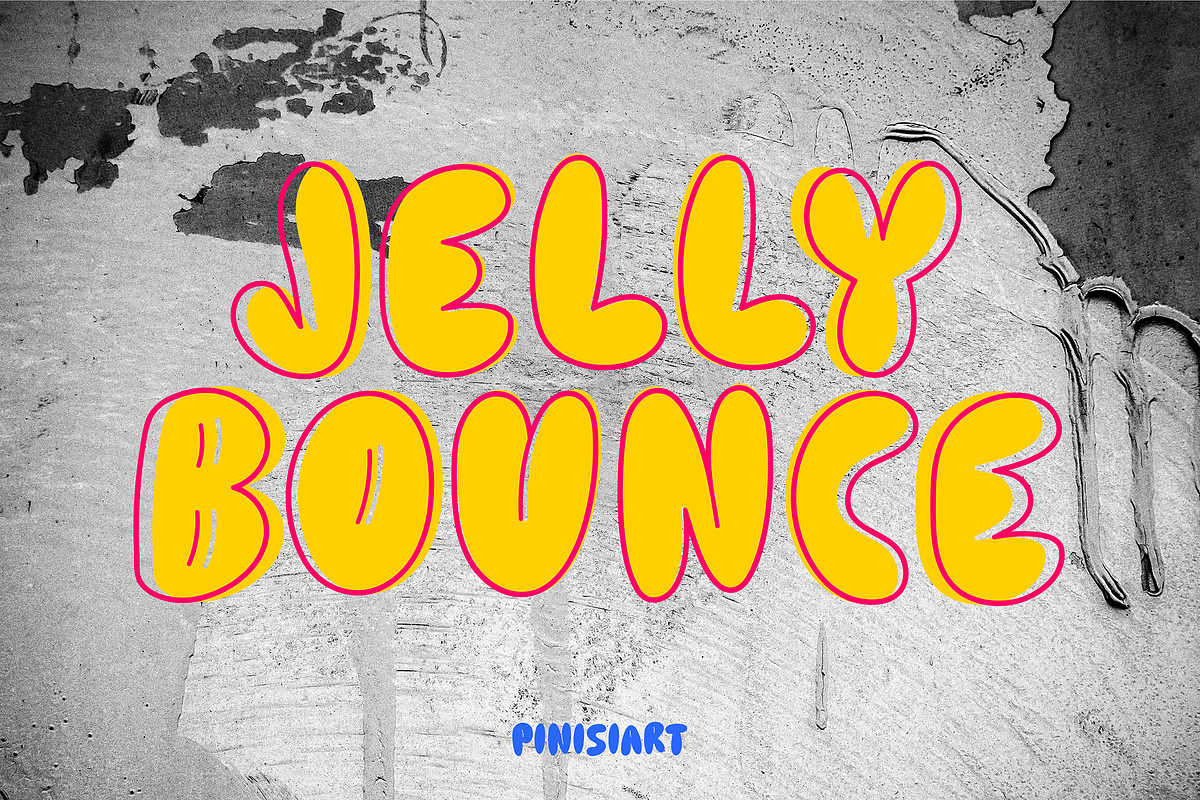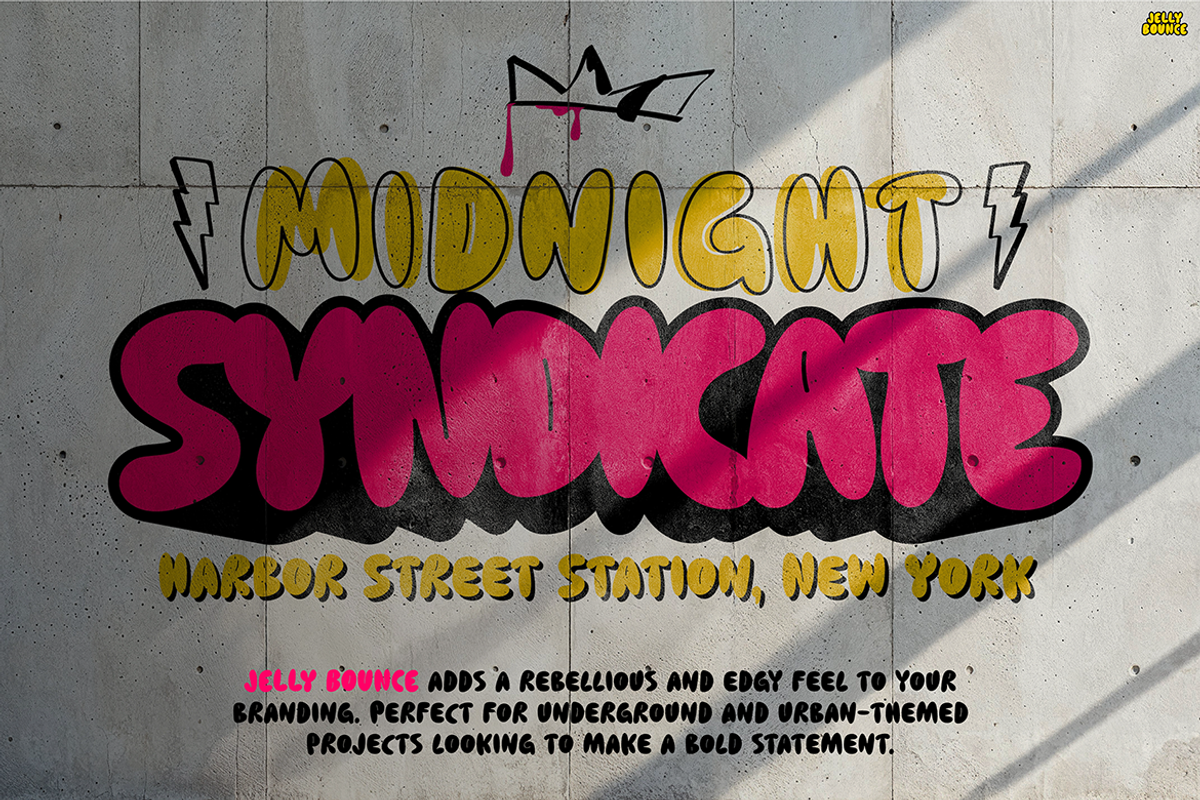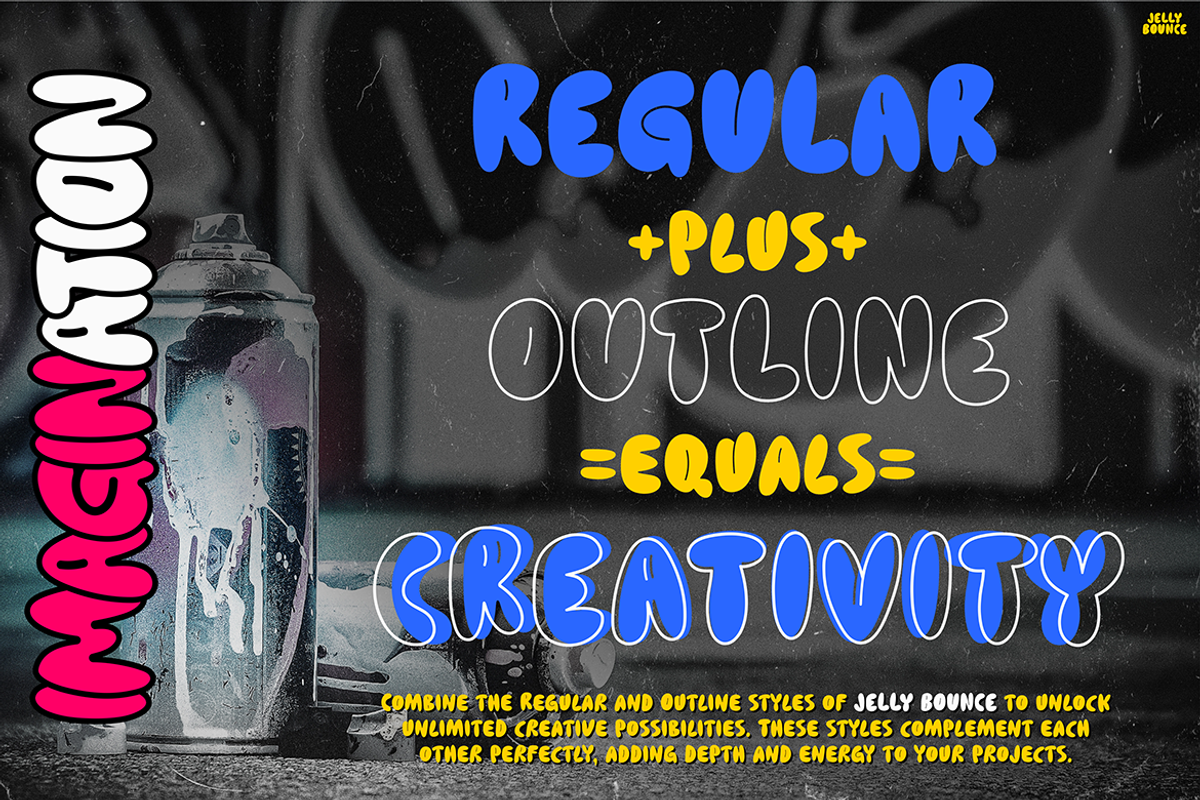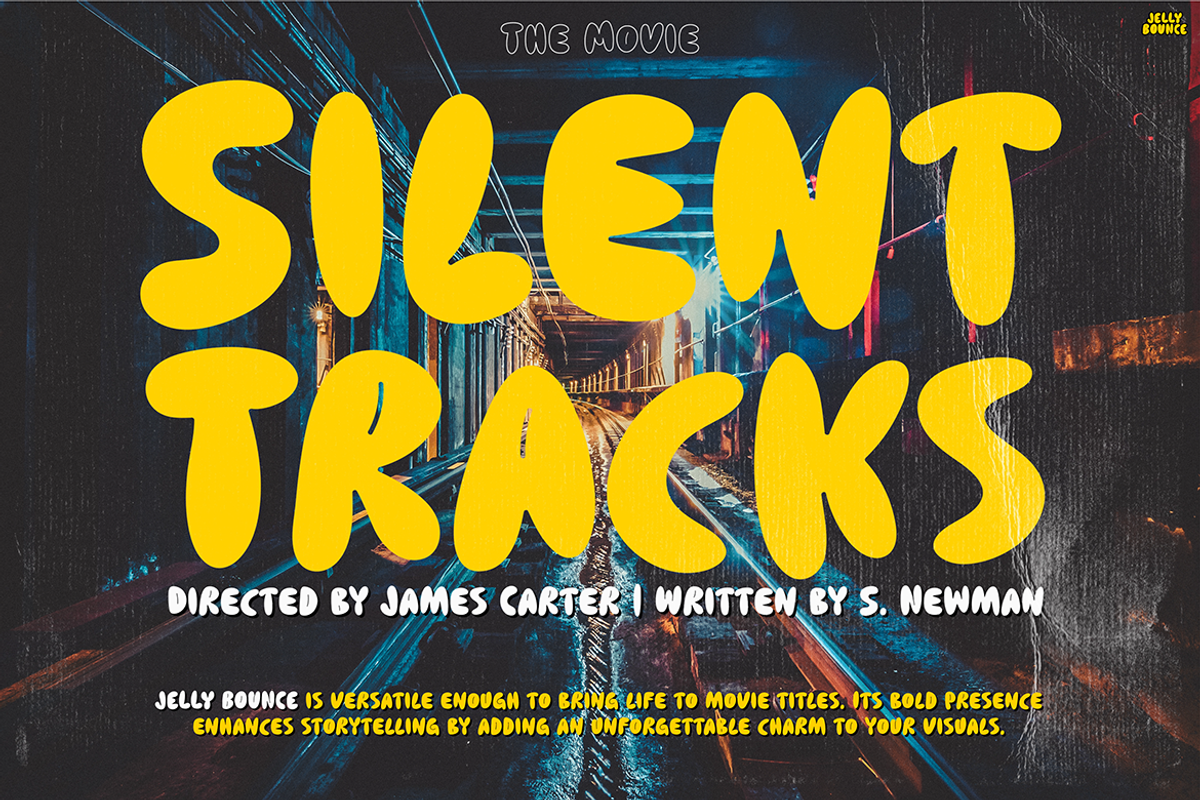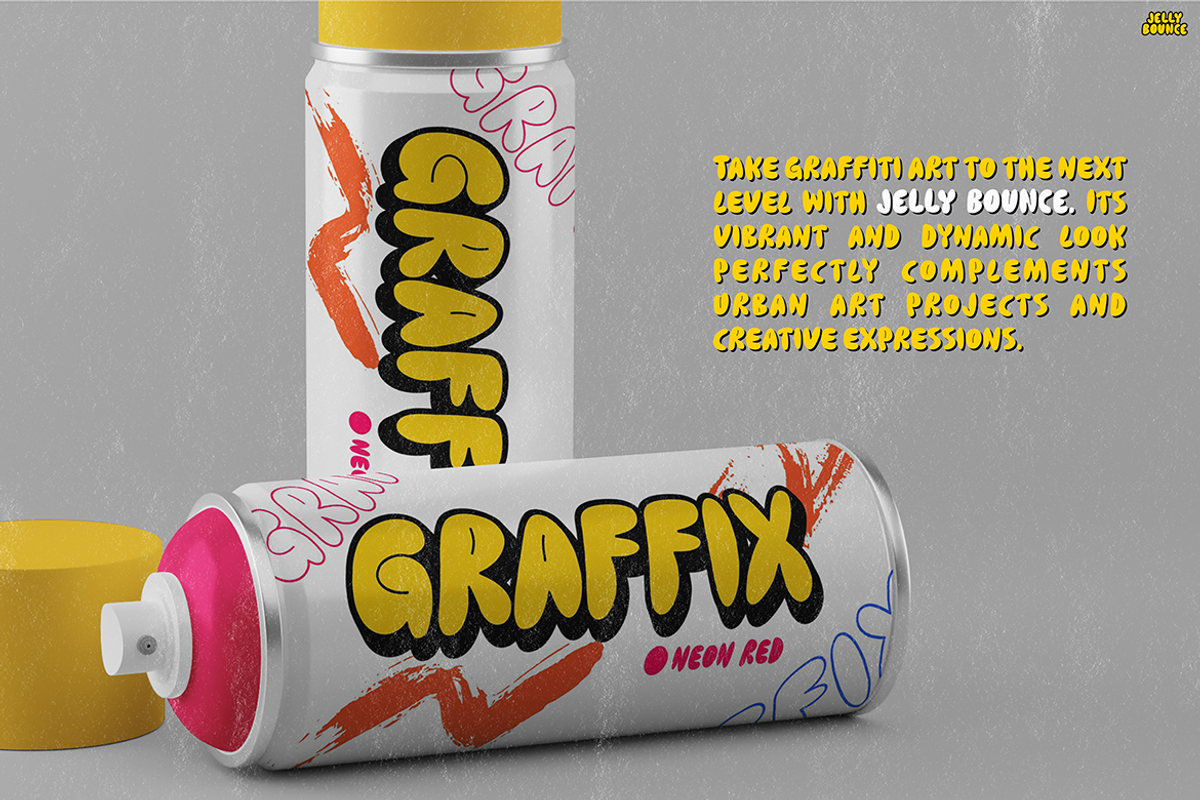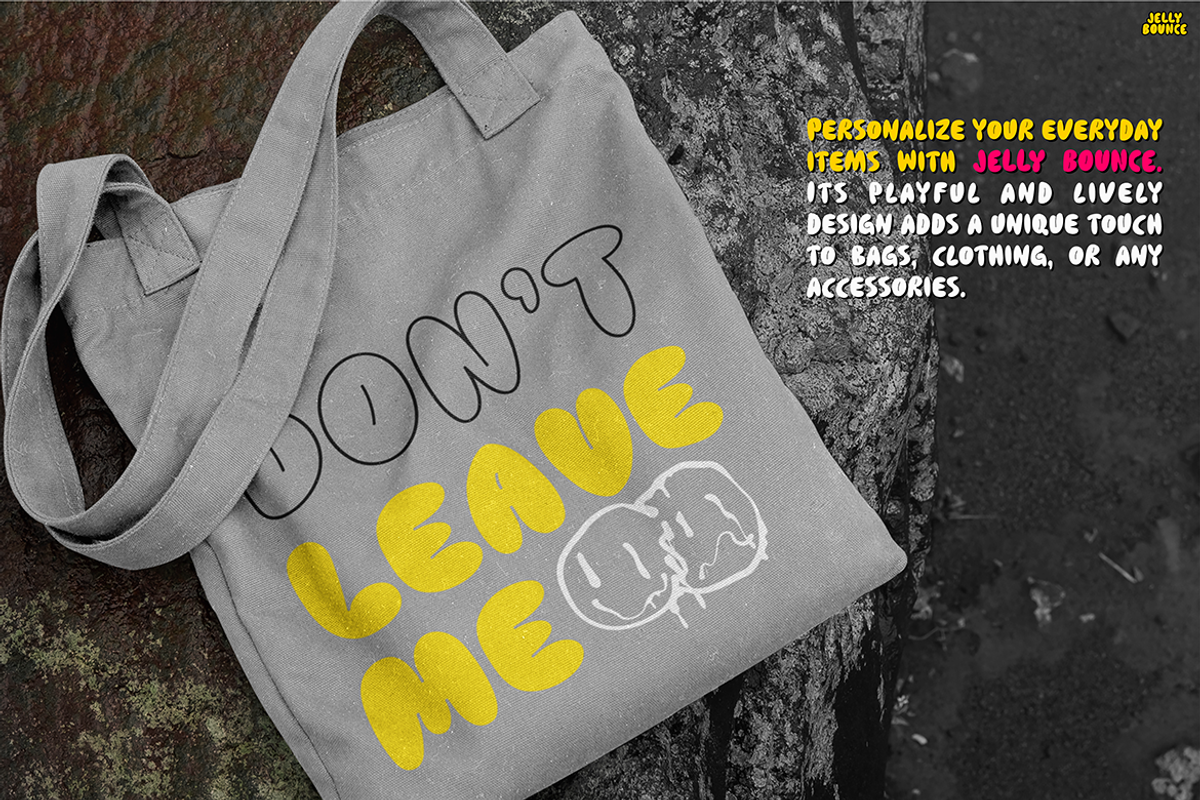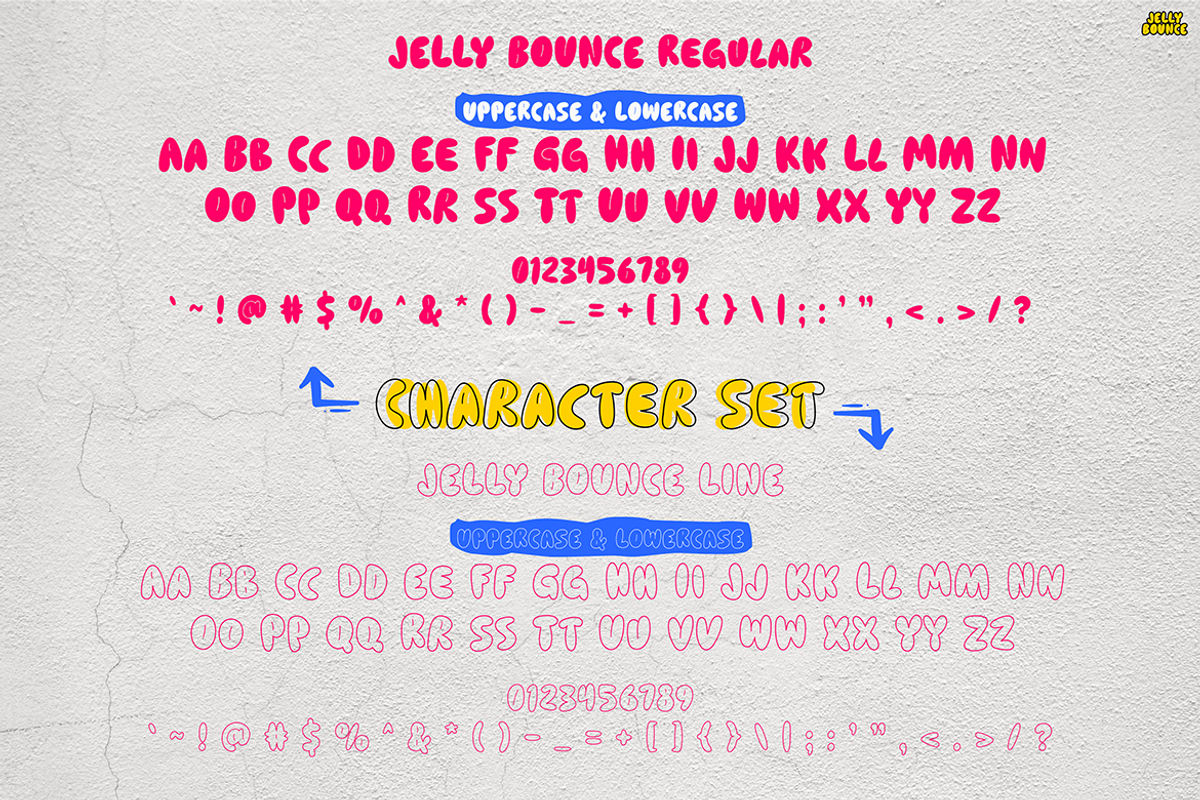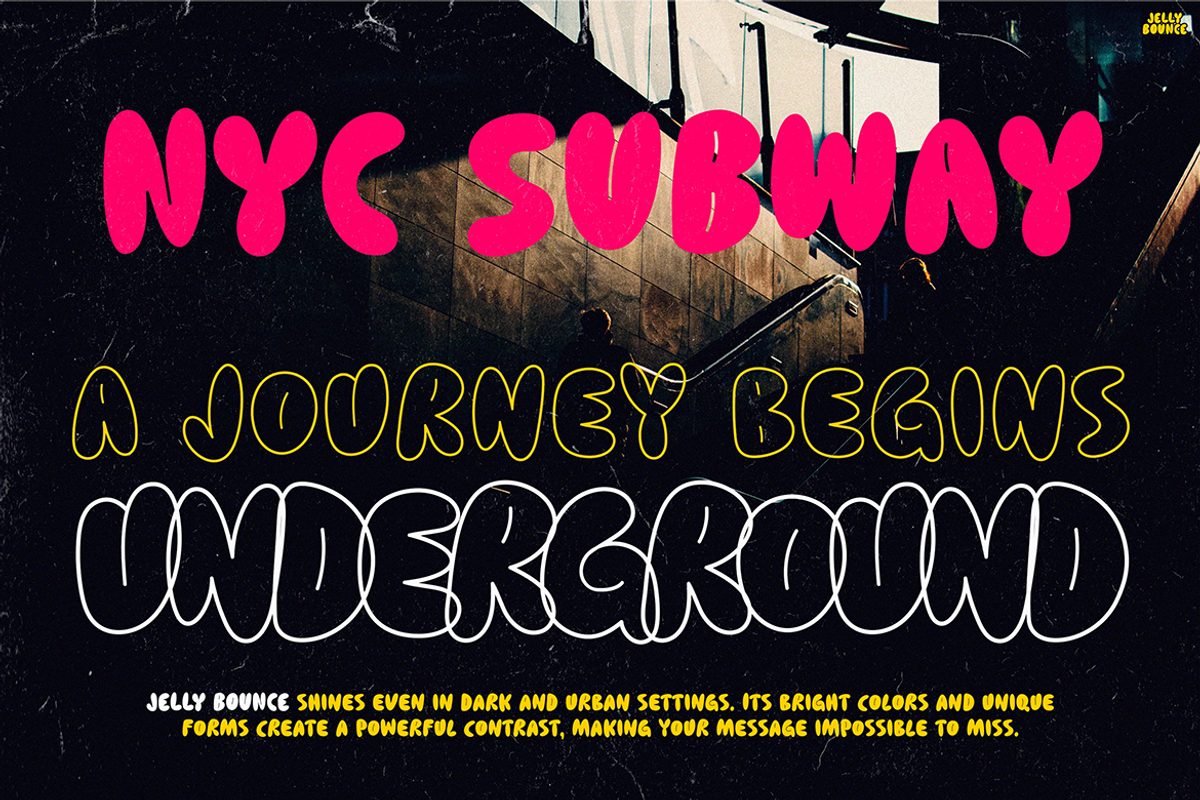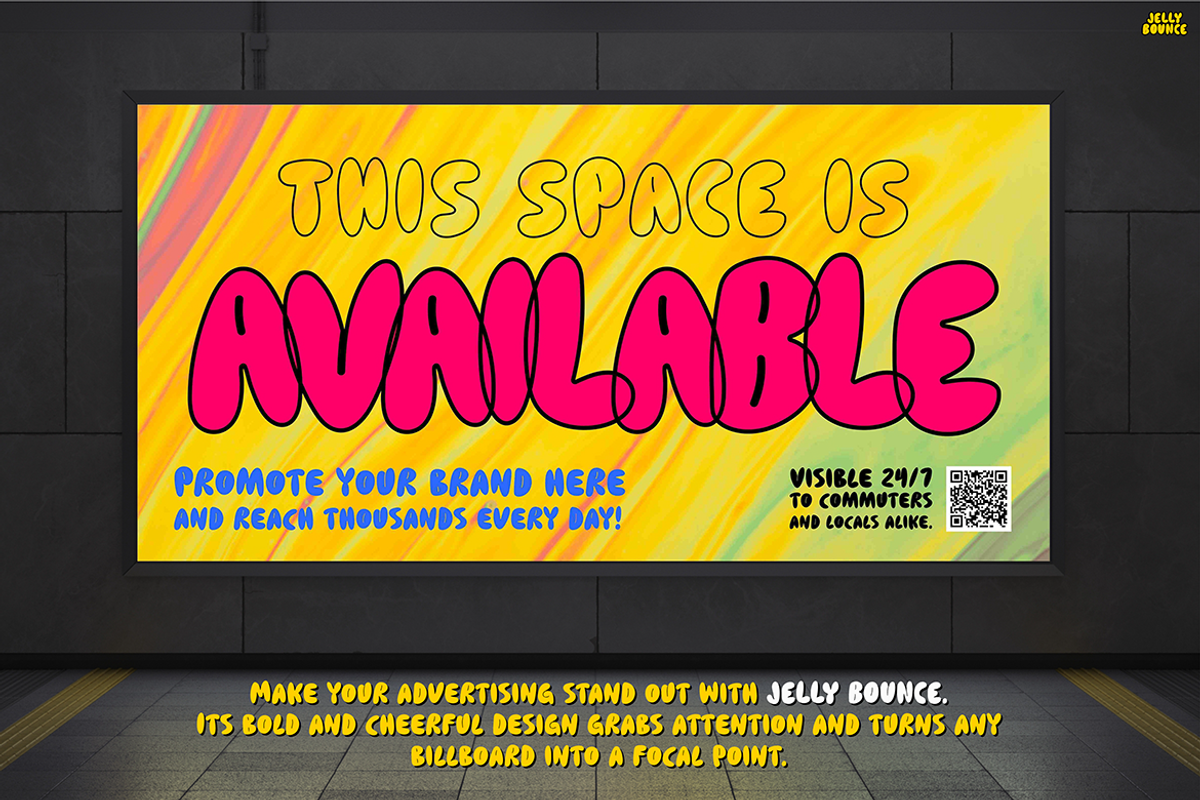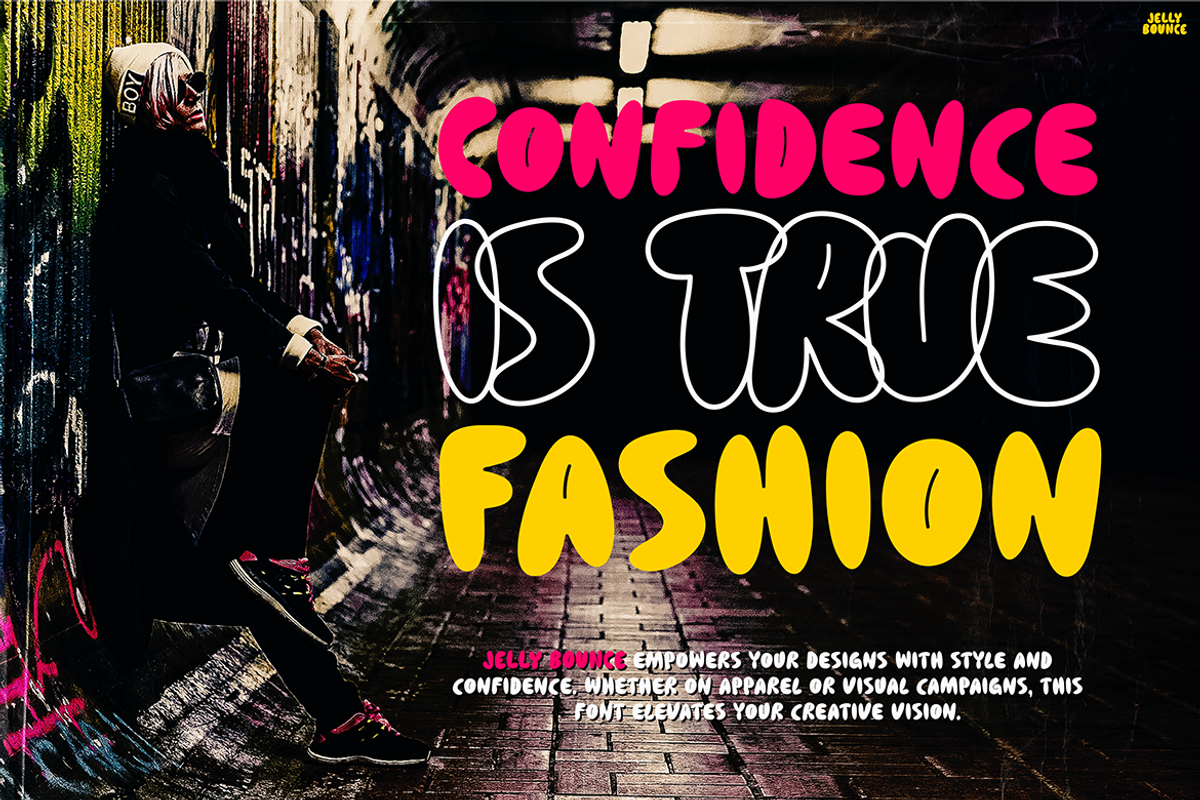
Jelly Bounce
Bubble Font Jelly Bounce is a playful, vibrant typeface designed to inject energy and creativity into any project. Featuring bold, rounded letterforms with a bouncy, hand-drawn aesthetic, this font is perfect for fun, dynamic designs. Moreover, the combination of its regular and outline styles offers versatility, allowing you to layer or mix them for striking effects. With its cheerful and approachable look, Jelly Bounce creates a sense of joy and spontaneity that captures attention instantly.
This font is ideal for designs that need a touch of whimsy while maintaining clarity and impact. Furthermore, its bubbly, soft curves and lively personality make it a standout choice for creative projects, branding, and advertising. Whether you’re designing for children’s products, party invitations, or bold digital media campaigns, Bubble Font Jelly Bounce adds a sense of playfulness that keeps the focus on your message. Additionally, its layered possibilities open up countless creative combinations, making it a go-to choice for designers seeking bold and versatile typography.